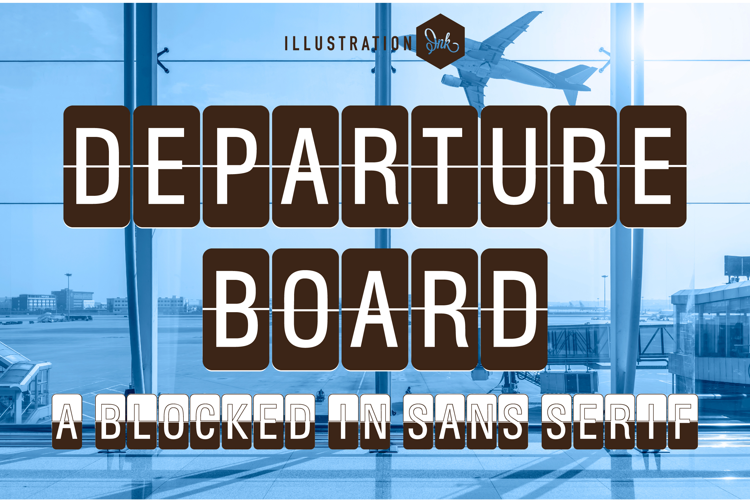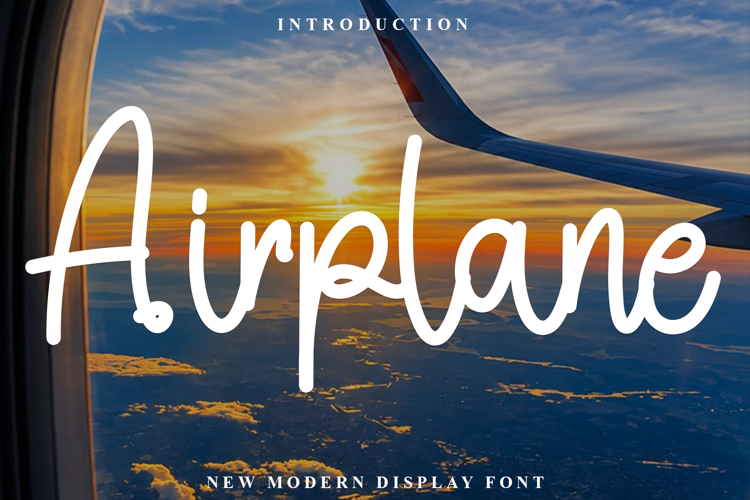
Airplane Font
This airplane font collection pairs aviation looks with travel-friendly scripts: Airwings is a retro narrow sans serif, Paper Airplanes is a bold sans, and Airplane Modeling are brush and elegant calligraphy fonts. There are over 2,000 to compare, nearly all with TTF and most with OTF.
Aviation Fonts
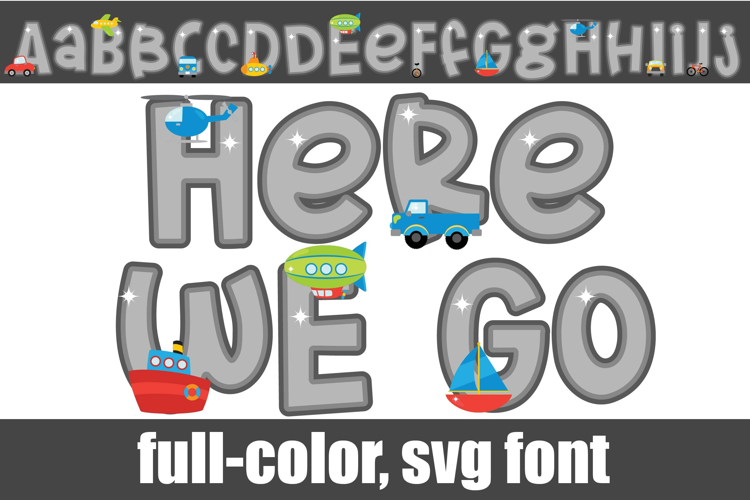
Plane Typography
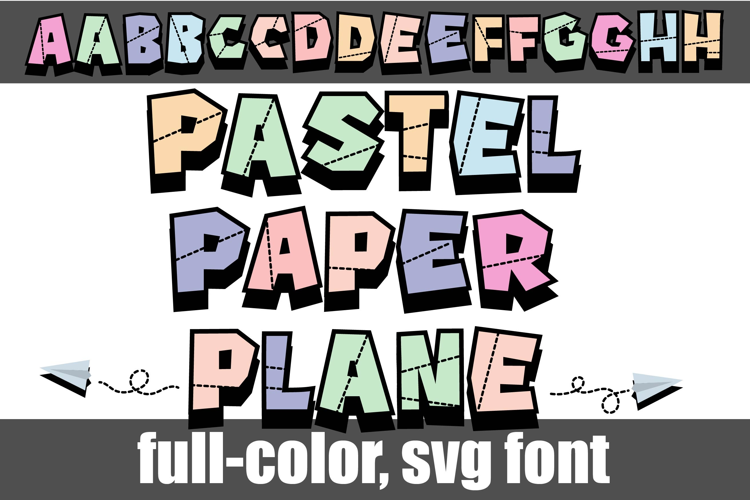
Aviation fonts and plane typography for logos and posters
If the project is about flying, start with Aviation Cocktail and the retro Airwings for a flight school logo, an airline-style poster or a pilot's retirement banner. The Propeller font illustration adds a graphic you can build a badge around, and a few fonts include EPS files. The Aviation Fonts and Plane Typography sections narrow the grid to flight-themed lettering.
Not every font here looks aeronautical. The brush script Airplane, elegant Airplane Modeling and simple handwritten Airplanes simply carry the name, and they suit travel quotes, journals and sky-themed cards. Whichever plane font you choose, install it on your Windows PC or Mac before opening your design app. Related collections include Tool Font, Cyber Font and Celebration Font.